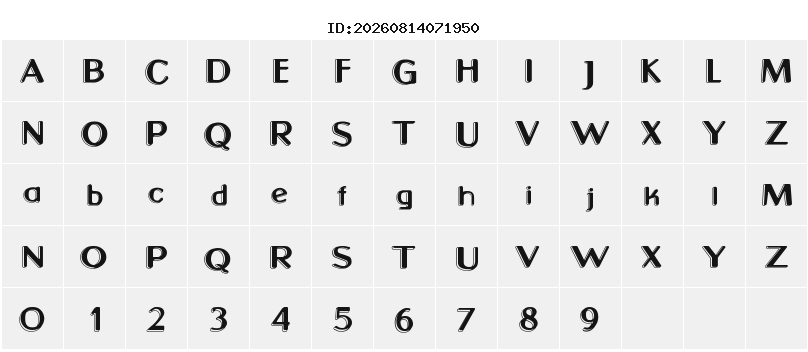
Sunset Boulevard Preview
About Sunset Boulevard.ttf
Sunset Boulevard.ttf is a modern, elegant sans-serif font designed for ultimate readability and visual harmony. Perfect for branding, headlines, web design, and print materials.